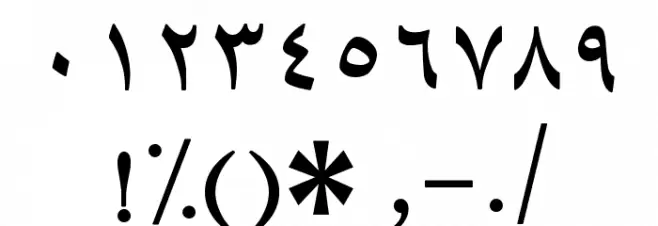
Mj_Talat Font
Mj_Talat Description
This font features a unique and artistic design, characterized by its flowing, calligraphic strokes that give it a handwritten feel. The numbers are particularly distinct, with a playful, almost whimsical style that stands out. The special characters maintain the same fluidity, adding to the overall cohesive look. This font's design is both elegant and approachable, making it suitable for creative projects that require a personal touch.
A calligraphic, handwritten-style font with artistic flair from Serif fonts.
- Proposed Projects: Ideal for invitations, greeting cards, artistic posters, and branding materials that require a personal and creative touch.
- Overall Style: Artistic, Handwritten
- Use Case: Logos, Invitations, Artistic projects